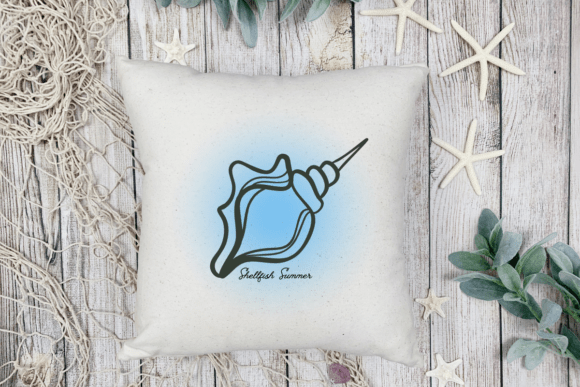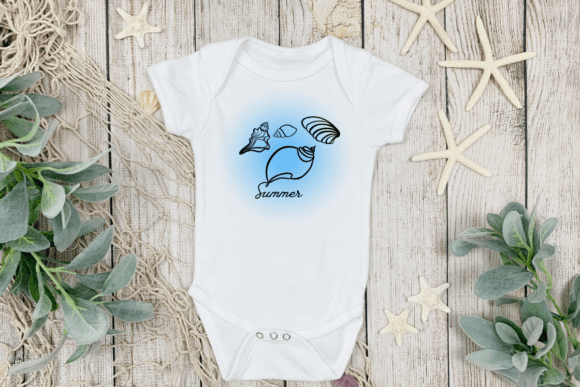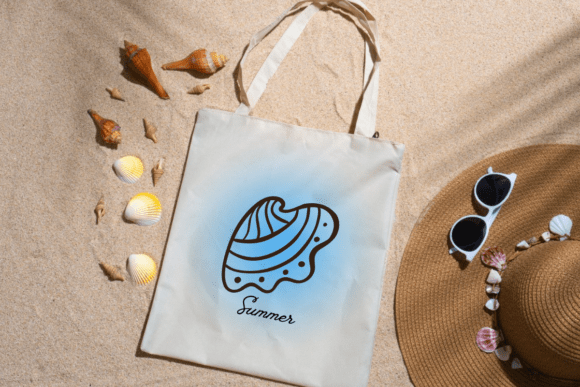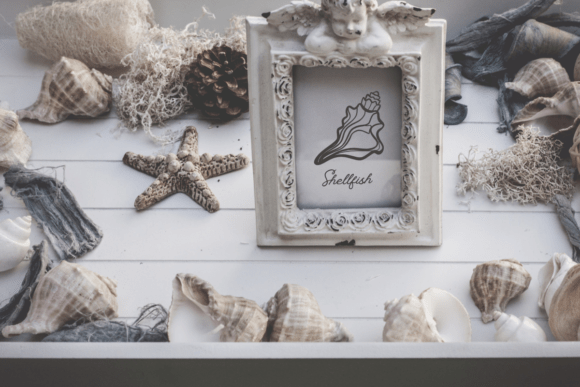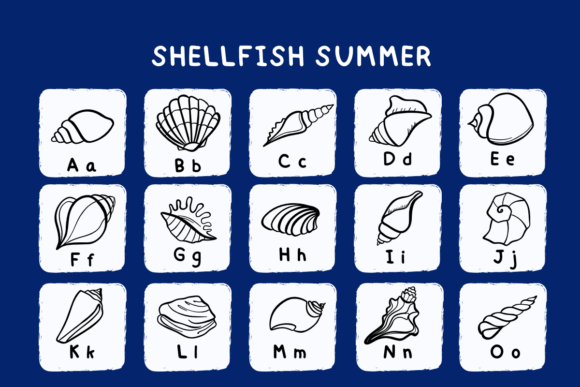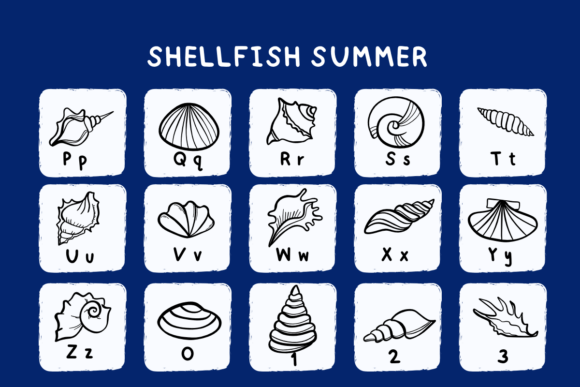
Introduction to Shellfish Summer Font
Have you ever found yourself sitting at your desk, staring blankly at a blank page, trying to come up with the perfect design concept? You’ve got a creative project on the horizon, but the ideas just aren’t flowing. This is where the right design resource can make all the difference. Enter Shellfish Summer Font, a playful and whimsical dingbats font that’s sure to spark your imagination and get those creative juices flowing.
Key Features of Shellfish Summer Font
- Unique, hand-drawn design with a playful, whimsical feel, perfect for creative projects.
- Includes a comprehensive character set, including uppercase and lowercase letters, numerals, and punctuation marks.
- Perfect for use in digital design, including social media graphics, blog posts, and marketing materials, as well as print projects like posters and flyers.
Honest Review: Shellfish Summer Font
I recently had the chance to work with the Shellfish Summer Font, and I must say it’s been a refreshing addition to my design resource collection. This free download has quickly become a go-to for any creative project that requires a touch of whimsy and playfulness.
- What works well: ✨ The font’s high quality and crisp lines make it perfect for headings and titles. The transparent background option allows for seamless integration with any design element.
- What works well: ✨ The font’s versatility shines through in its ability to work well in a variety of contexts, from digital design to print materials.
However, I do have a few minor complaints. The font’s limited character set may be a drawback for those who need to use it for extensive text-based projects. Additionally, the font’s file size can be a bit large, which may impact page loading times.
⚠️ Limitations aside, I’m thoroughly impressed with the Shellfish Summer Font. Its unique style and high quality make it a valuable addition to any designer’s toolkit. I’d highly recommend giving it a try for your next creative project.
Best Practices and Tips
For the most effective use of Shellfish Summer Font, experiment with different font sizes and combinations to create a visually appealing design. Consider using it for headings, titles, or as a design resource for creative projects.
Shellfish Summer Font is ideal for designing summer-themed materials, such as invitations, flyers, or social media graphics. Its unique and playful style makes it perfect for beach-themed designs, party invitations, or promotional materials.
Getting the Most Out of Shellfish Summer Font
To maximize the potential of Shellfish Summer Font, remember to pair it with a suitable background and color scheme. This will help the font stand out and create a cohesive design. Experiment with different combinations to find the perfect fit for your creative project.
Compared to Shellfish Summer Font, Pacifico has a more refined and sophisticated look, making it suitable for formal events, weddings, and other high-end designs.
Great Vibes is a beautiful, modern script font that is great for designs that need a carefree and playful feel. It is free to download and can be used as a design resource for various creative projects.
Yes, the Shellfish Summer Font comes with a transparent background, making it easy to combine with other design elements or use as a overlay. This feature allows for a seamless integration with your creative project, giving you more flexibility in your design.